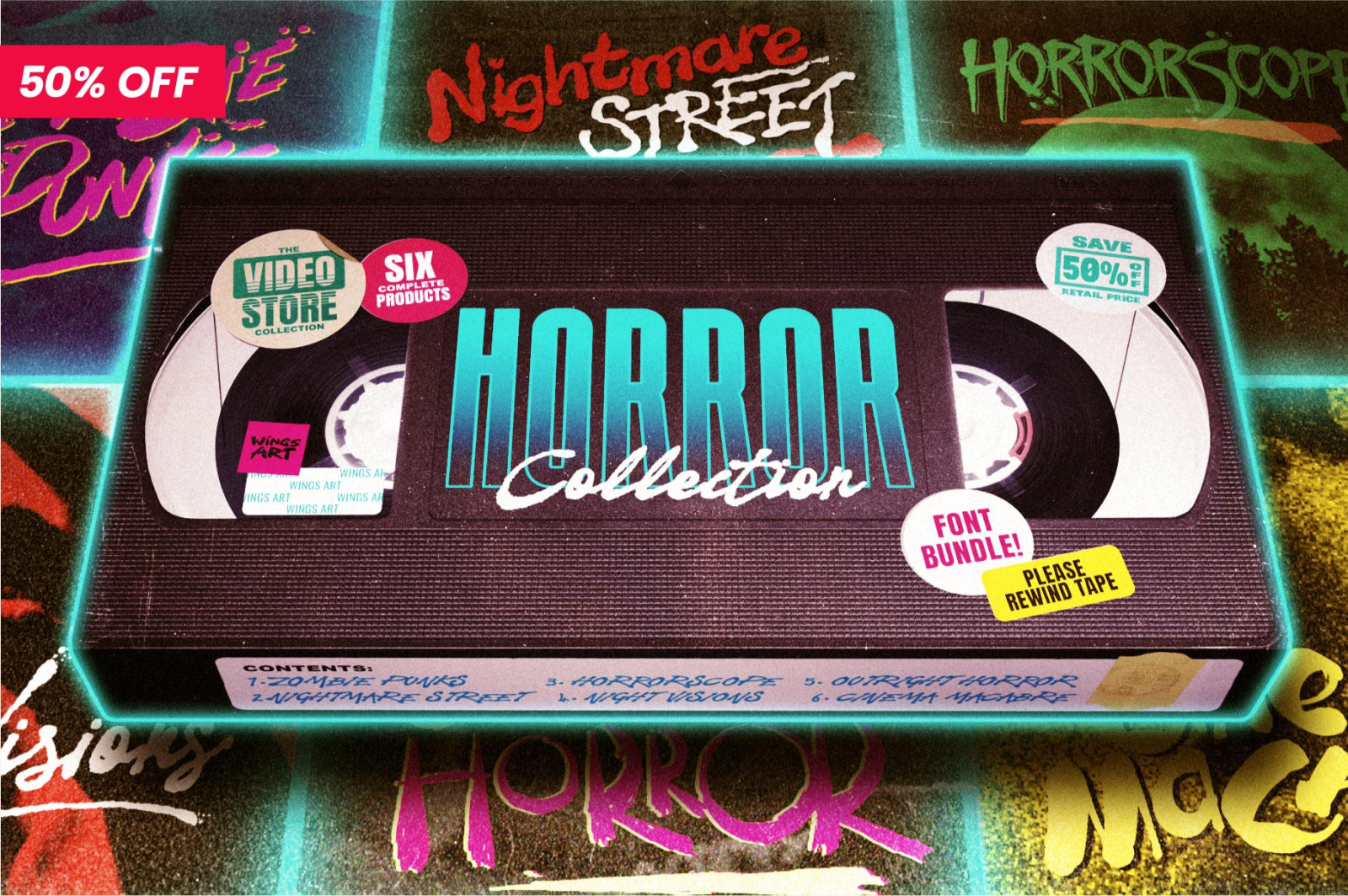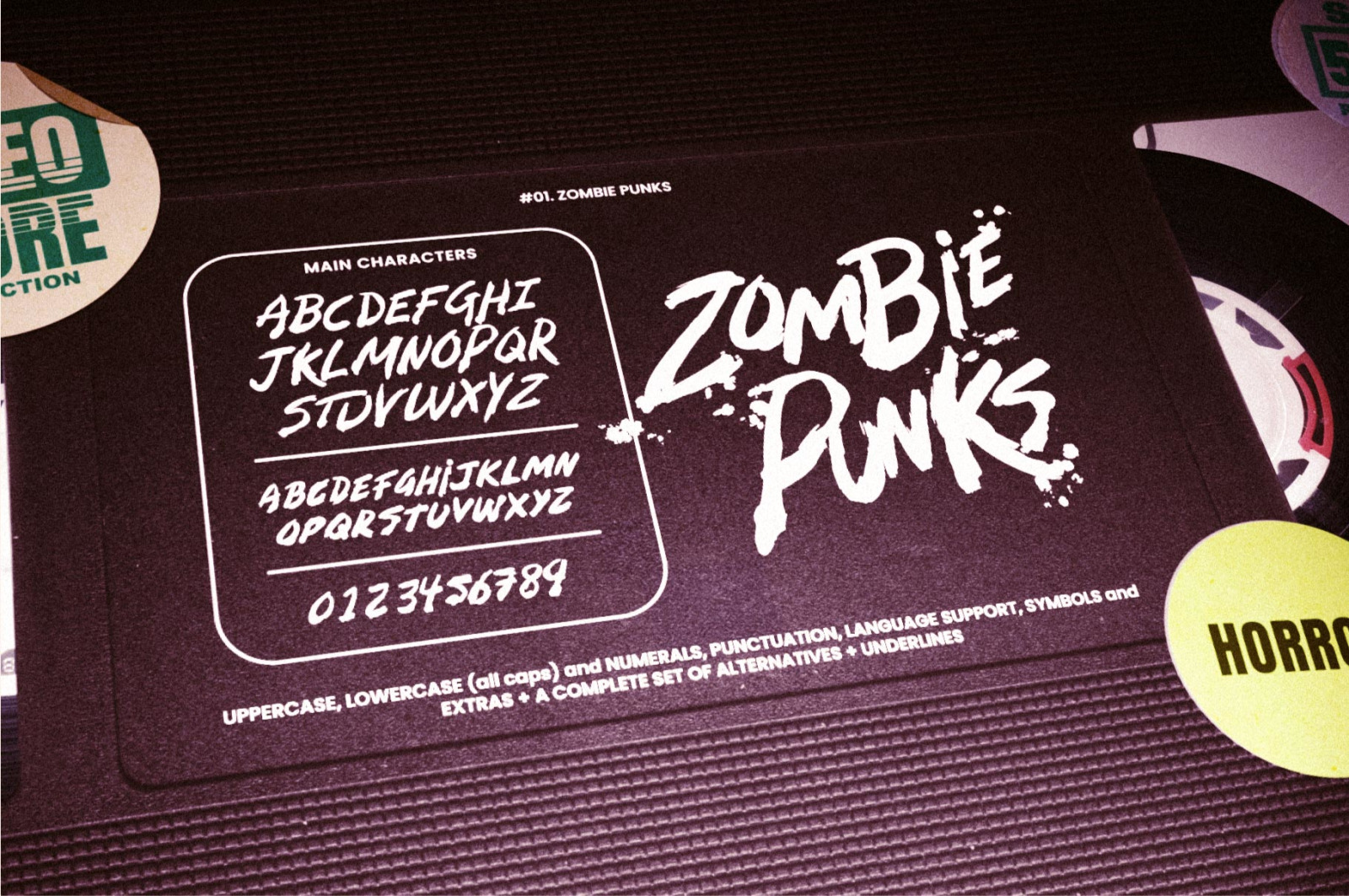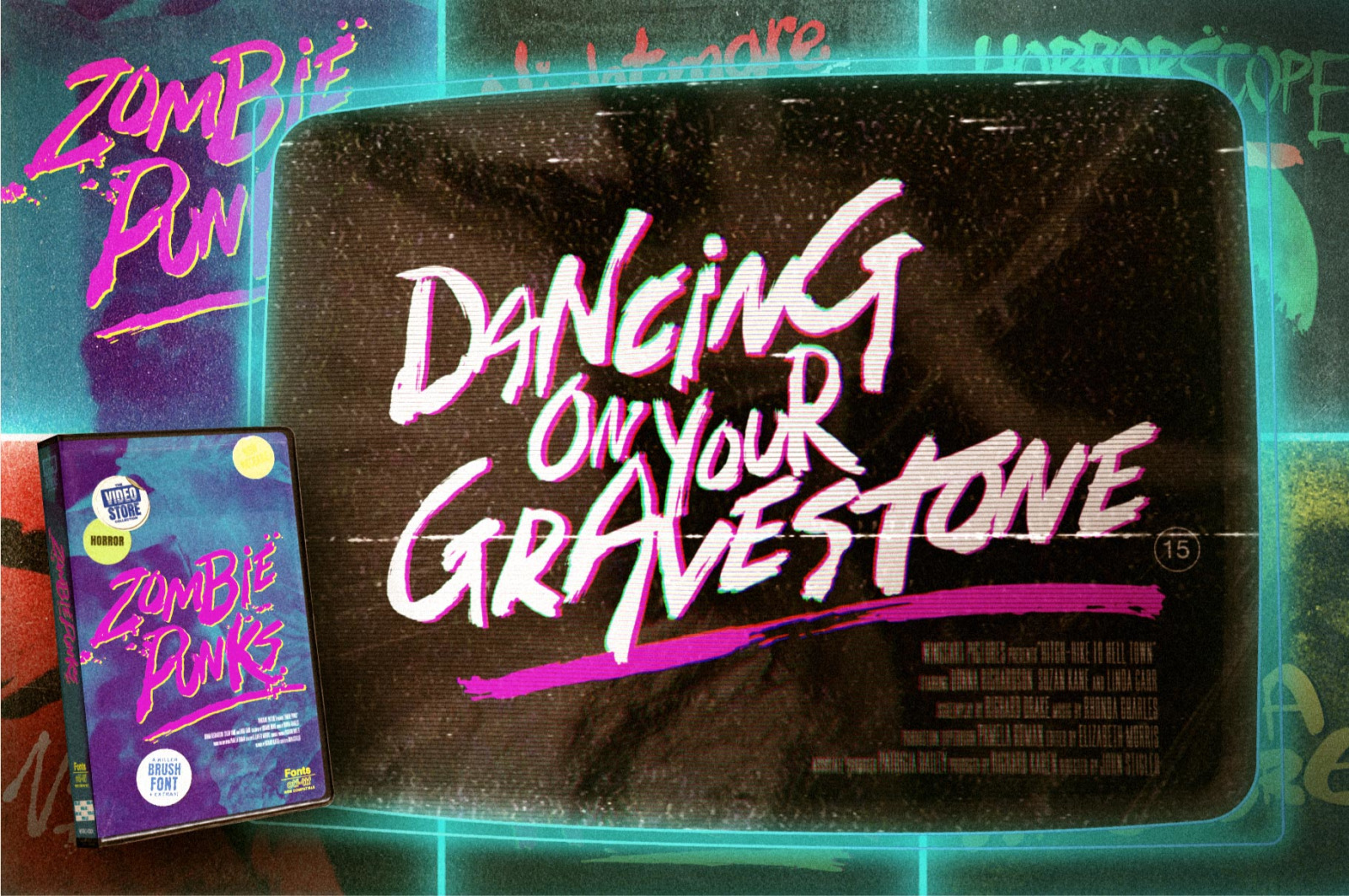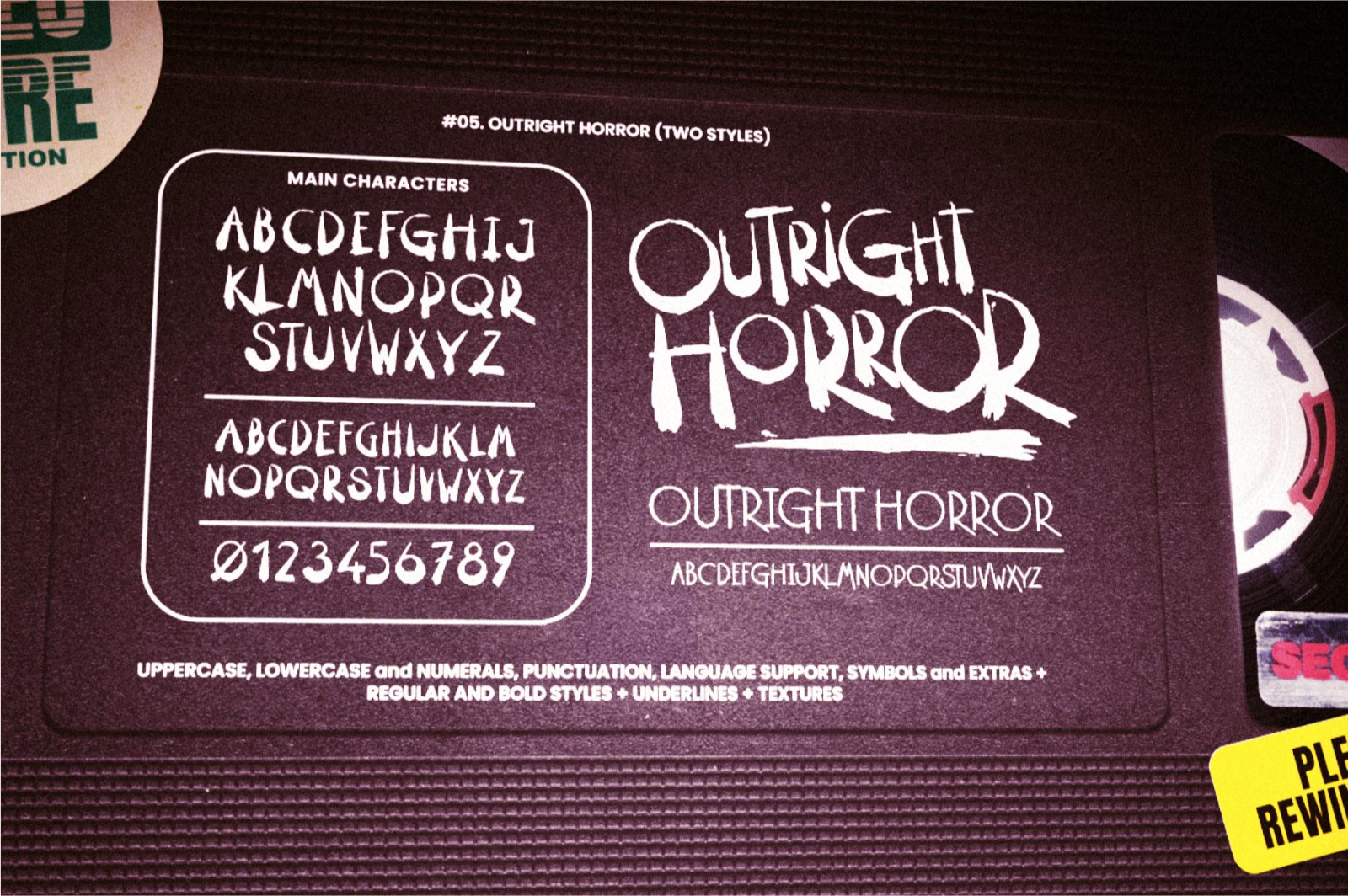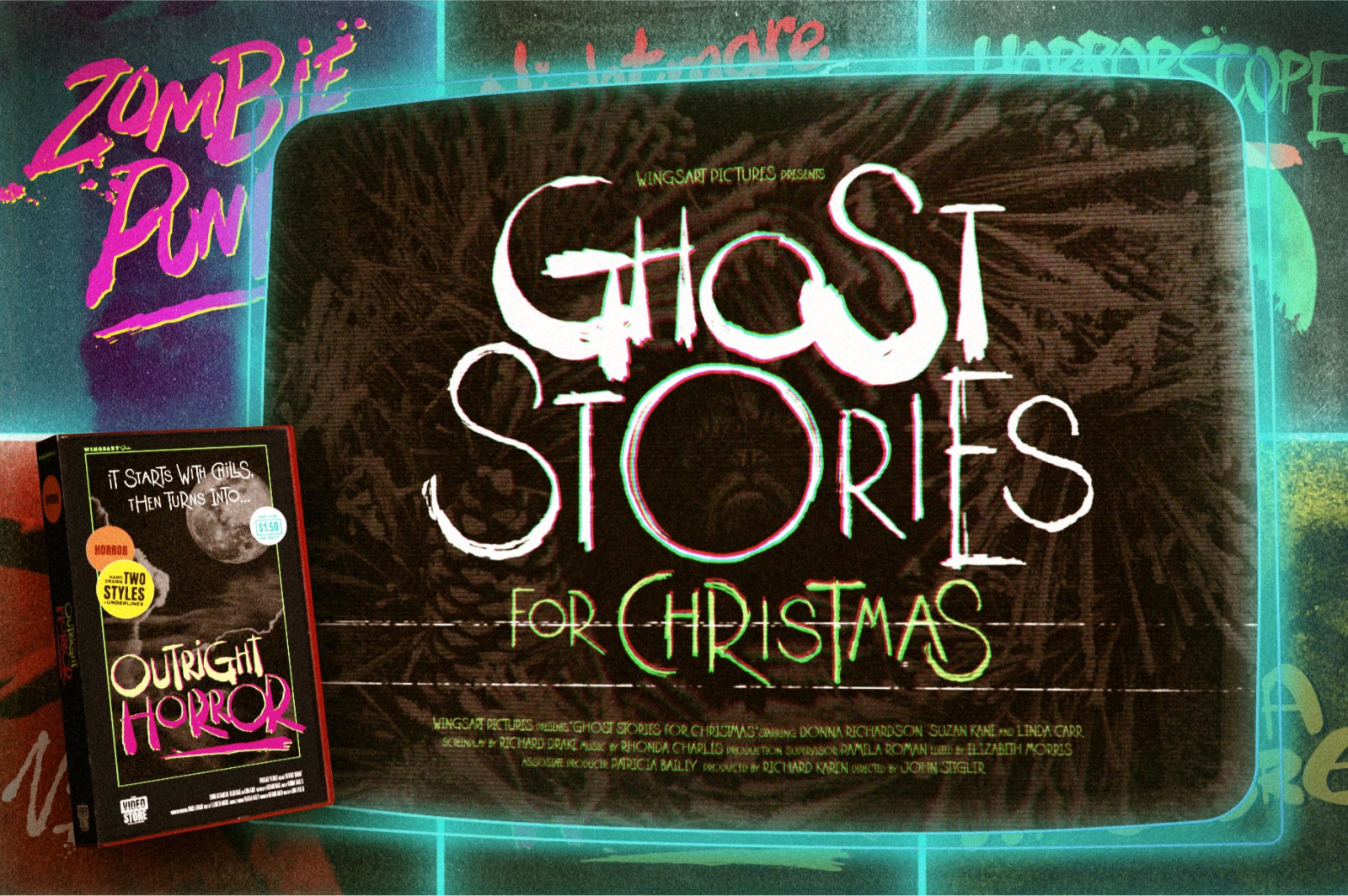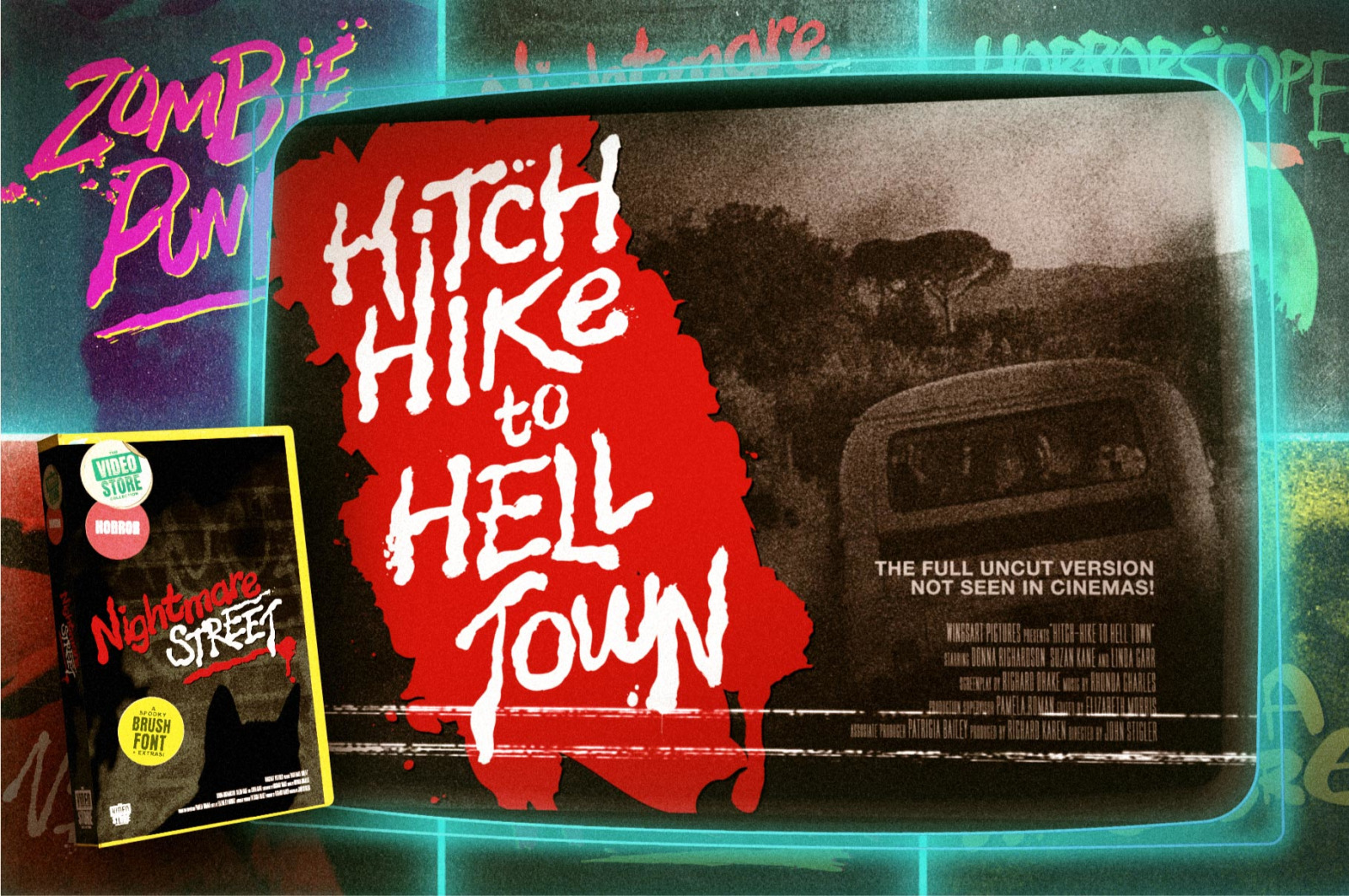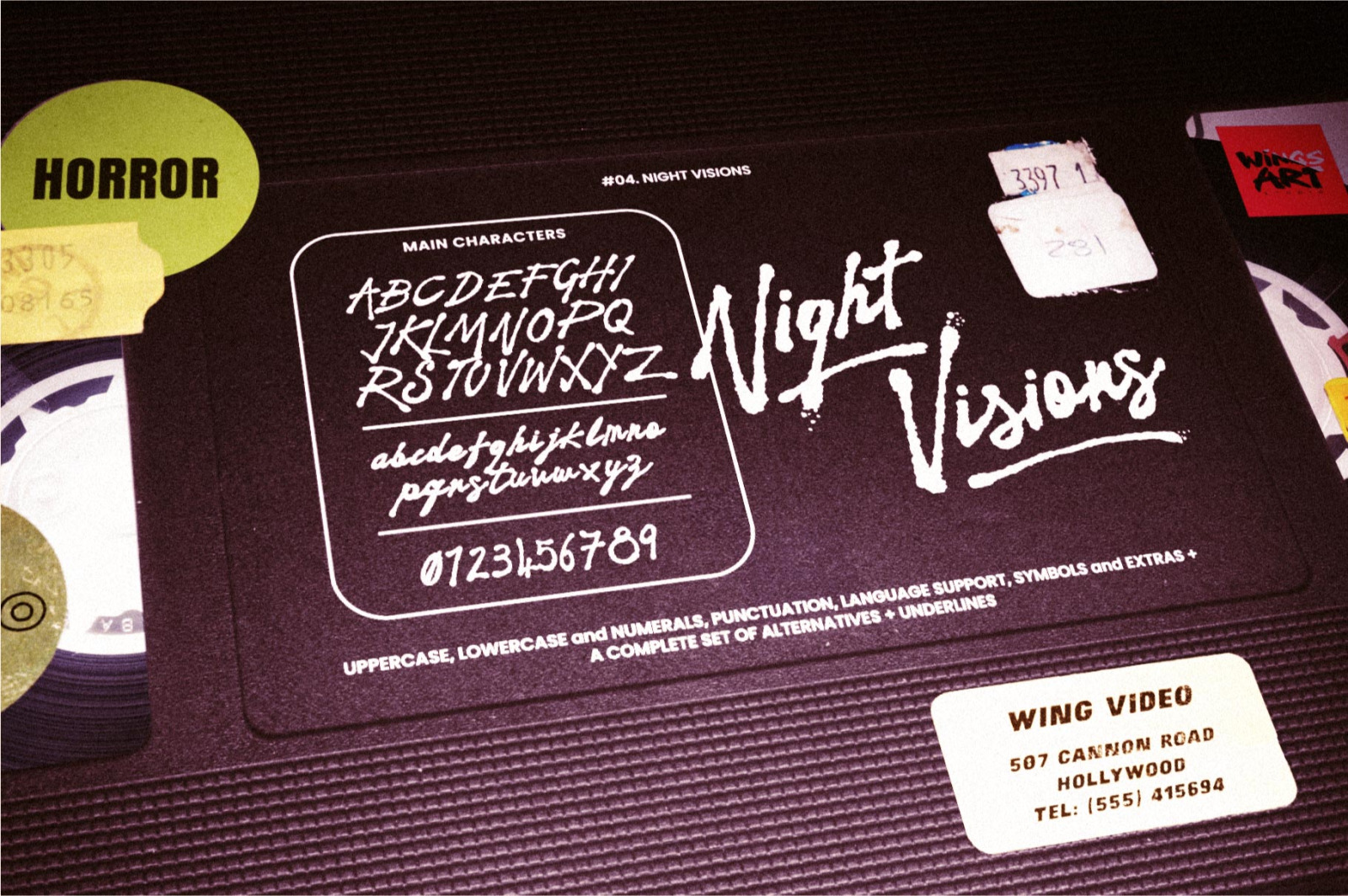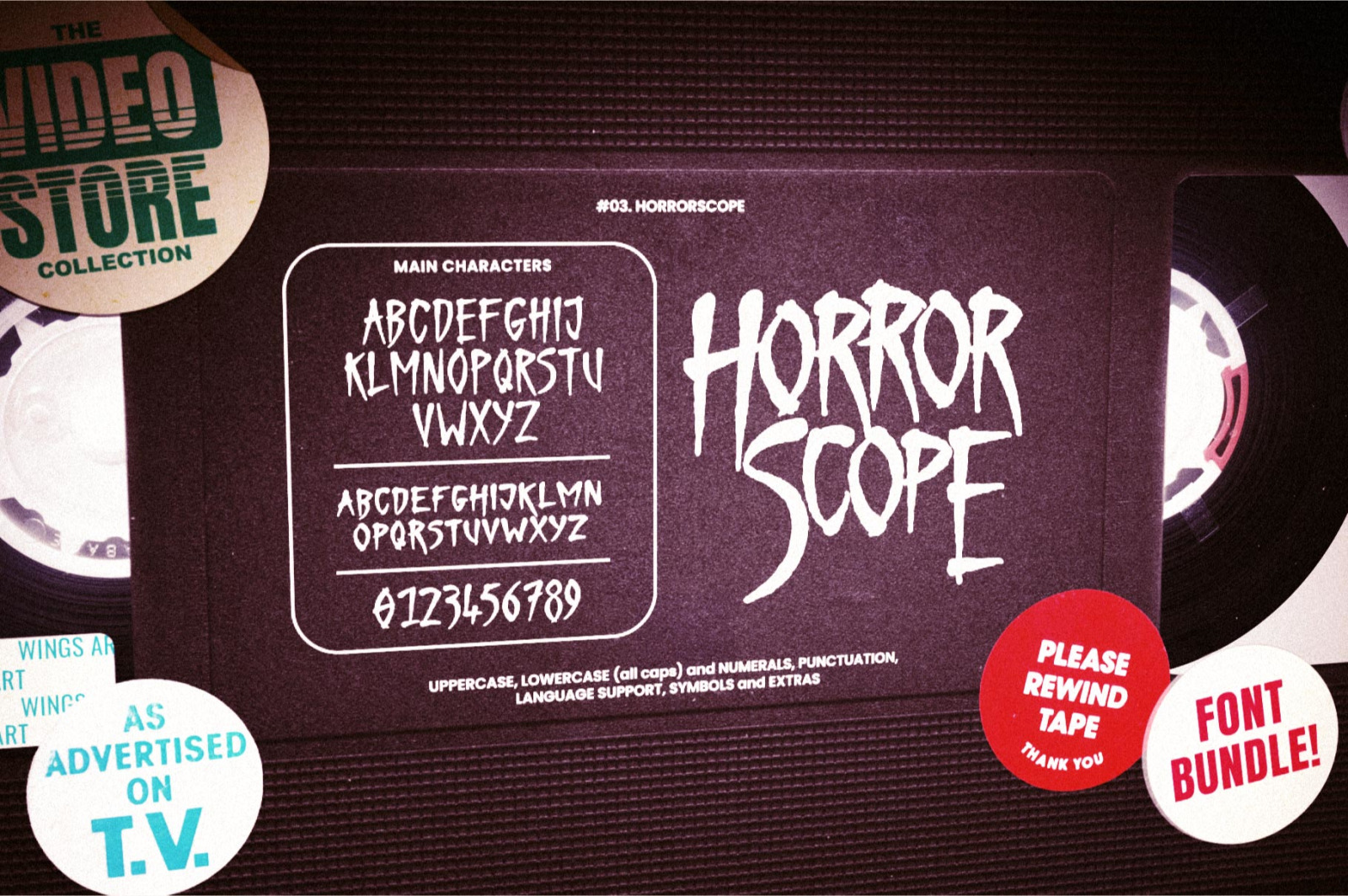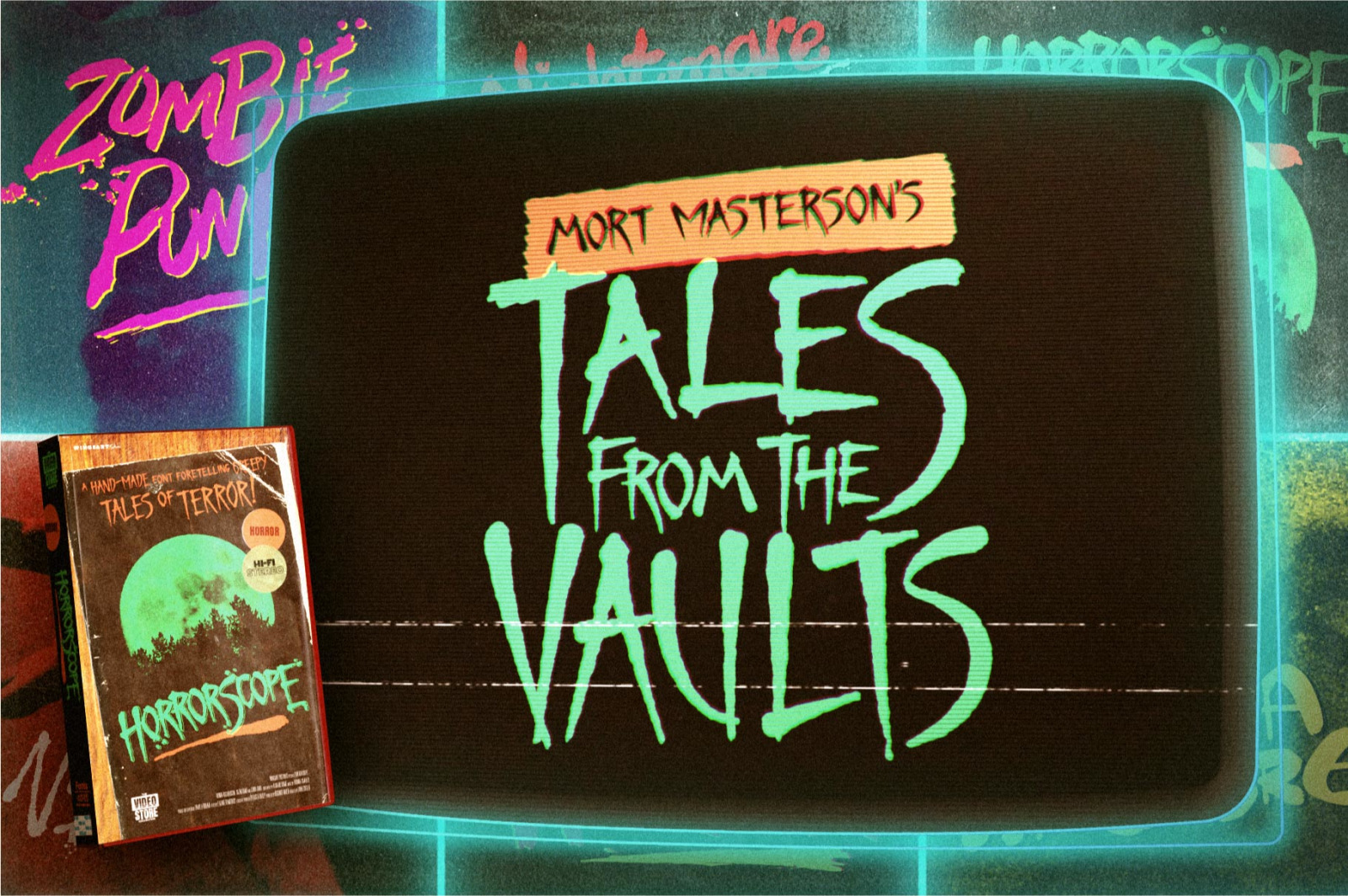
The VHS Horror Font Bundle
A killer collection of six hand drawn fonts inspired by the VHS cover art of the 1980s!
Dust off your old VCR a join us on a trip back to the video stores of the nineteen eighties. Where it’s Friday night and you’re browsing the shelves for this weekend’s movie rentals. Tonight you’re in the mood for something scary!
Featuring six complete fonts in one money-saving bundle, this unique collection of brush, script and all-caps fonts offer designers the perfect compliment to any project that requires a more analogue approach. Great for title treatments on illustrated posters for example, or retro inspired movie titles, video games or Halloween product marketing. This is a carefully curated collection that offers you a versatile set of tools and countless creative options.
Let’s dig a little deeper into each individual font:
1. ZOMBIE PUNKS
A movie studio favourite, this grungy, textured brush font doesn't care about the rules of kerning, or standing in line like a good little font. It want's to shout, break stuff and maybe eat your brains!
2. NIGHTMARE STREET
If the kids on Elm Street thought they had it bad, they didn't know what lurked around the corner on Nightmare Street! Blood-soaked, inky lettering, shaking with fear and nervous tension!
3. HORRORSCOPE
"Don't stay up too late reading those horror stories or they'll rot your brain!" So foretold the parents of this narrator and humble designer of said paperback inspired fonts.
4. NIGHT VISIONS
A creeping script font with an air of mystery, maybe even a ghostly warning from the past written in ancient ink, or is that blood!?
5. OUTRIGHT HORROR
This font has one mission, and that's to scare the bejeezus out of you! The first style is a restrained light option, then BLAM! you jump scare them with the bold alternatives. A perfect combo.
6. CINEMA MACABRE
Hailing from Italy, this font has a European Giallo influence that brings a touch of elegance with it's witchcraft and and knife wielding serial killers!